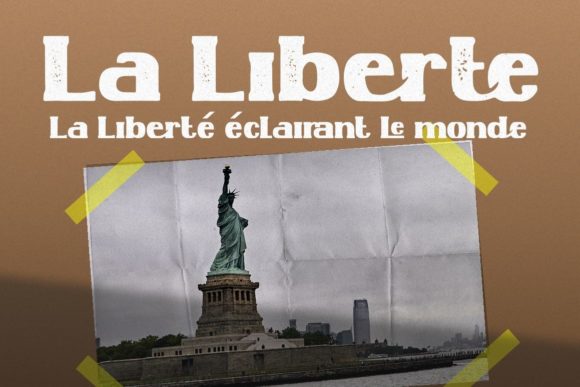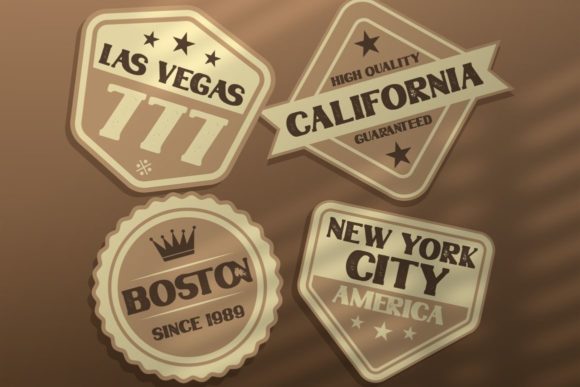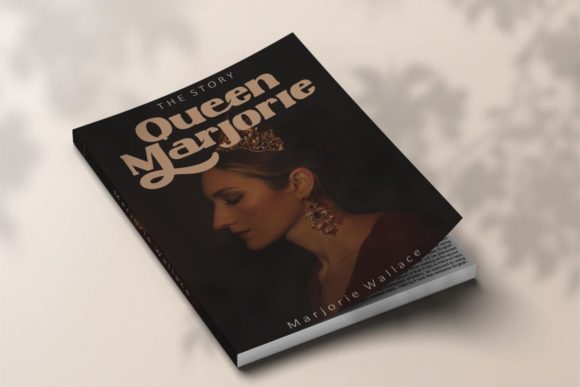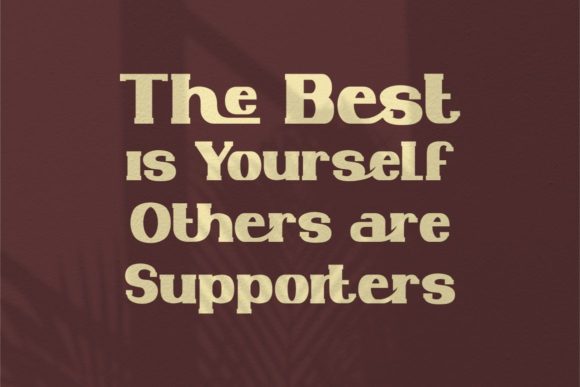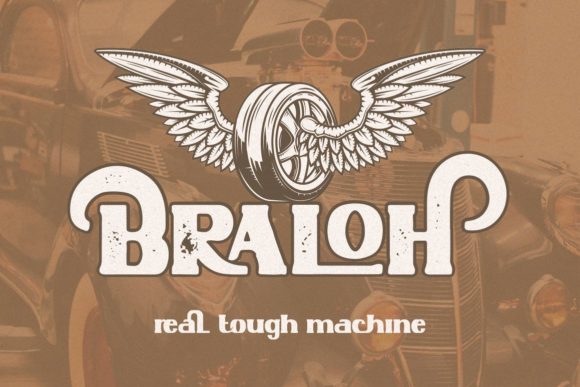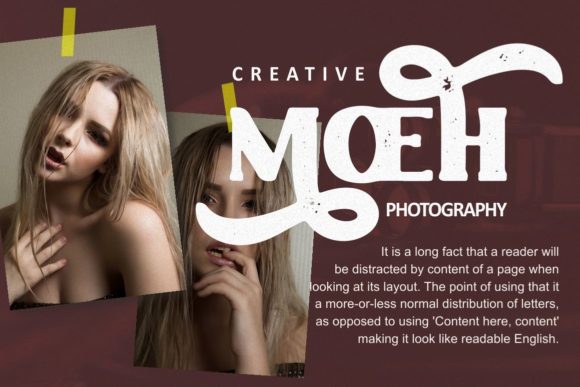
Introducing Heathfield Font: A Bold and Versatile Serif Font for Designers and Crafters
Are you tired of using the same old fonts in your designs? Look no further than Heathfield Font, a bold and thick lettered serif font that’s perfect for adding a touch of elegance and sophistication to your projects. In this article, we’ll take a closer look at the features and benefits of Heathfield Font, and explore its endless possibilities for designers and crafters.
What is Heathfield Font?
Heathfield Font is a serif font that’s designed to make a statement. Its bold and thick lettering gives it a unique and distinctive look that’s sure to grab attention. Whether you’re working on a logo, brochure, or website, Heathfield Font is the perfect choice for adding a touch of class and sophistication.
Features and Benefits of Heathfield Font
So what are the key features and benefits of Heathfield Font? Here are just a few:
- Bold and thick lettering: Heathfield Font’s bold and thick lettering gives it a unique and distinctive look that’s sure to grab attention.
- PUA encoding: With PUA encoding, you can access all of the glyphs and swashes in the font with ease, making it easy to create beautiful and intricate designs.
- Serif font: Heathfield Font is a serif font, which gives it a classic and elegant look that’s perfect for adding a touch of sophistication to your designs.
- Endless possibilities: With Heathfield Font, the possibilities are endless. Whether you’re working on a logo, brochure, or website, this font is perfect for adding a touch of elegance and sophistication.
How to Use Heathfield Font in Your Designs
So how can you use Heathfield Font in your designs? Here are a few ideas to get you started:
- Logos and branding: Heathfield Font is perfect for creating bold and eye-catching logos that make a statement.
- Brochures and flyers: Add a touch of elegance and sophistication to your brochures and flyers with Heathfield Font.
- Websites and blogs: Use Heathfield Font to create beautiful and readable headers and titles for your website or blog.
- Social media graphics: Heathfield Font is perfect for creating eye-catching social media graphics that grab attention.
In conclusion, Heathfield Font is a bold and versatile serif font that’s perfect for designers and crafters. With its PUA encoding and endless possibilities, this font is sure to become a go-to choice for anyone looking to add a touch of elegance and sophistication to their designs. Whether you’re working on a specific project or just want to explore your creativity, Heathfield Font is the perfect choice. So why wait? Download Heathfield Font today and start creating!